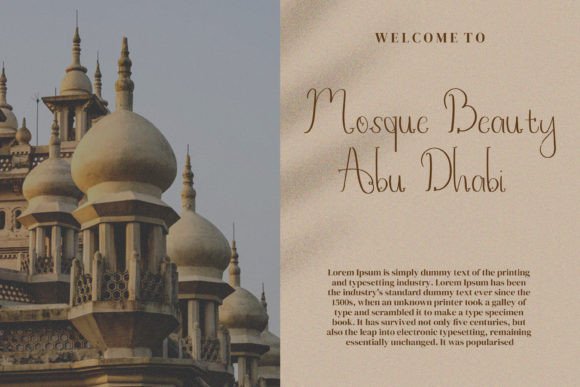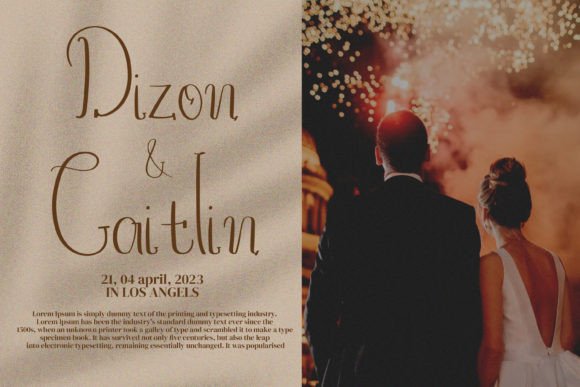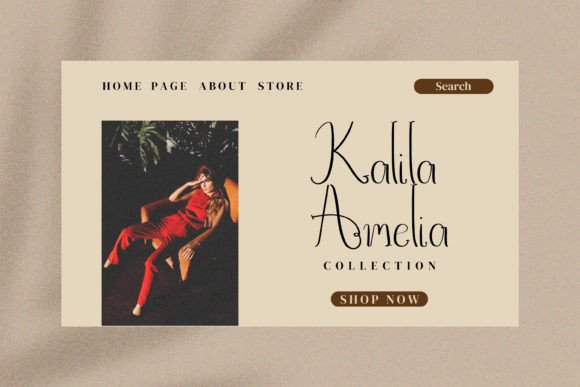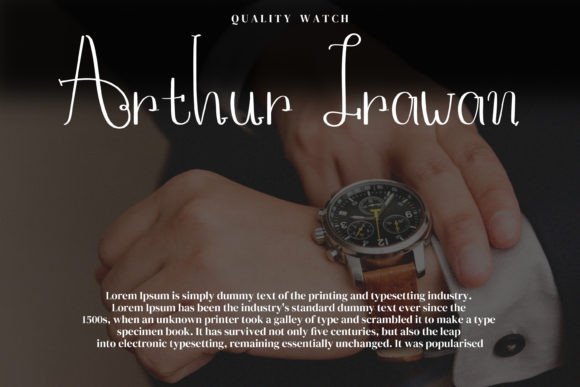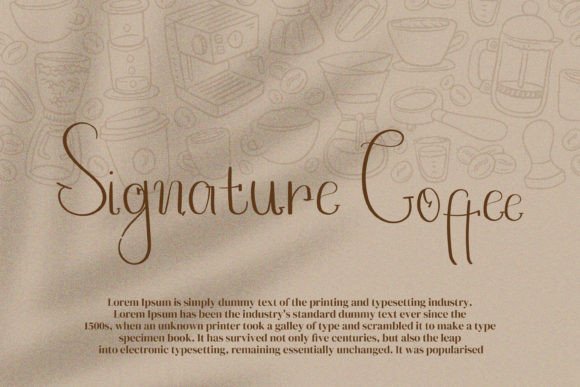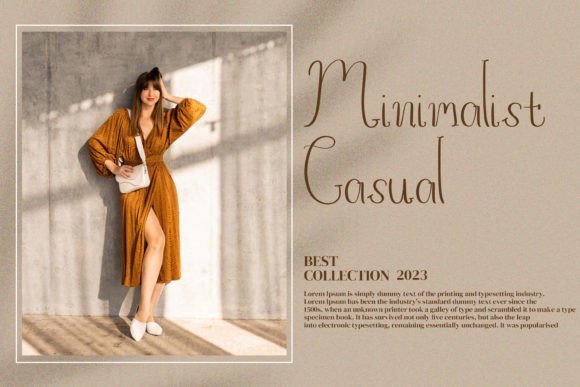
Introduction to Hayletta Font
Hayletta is a fun and quirky handwritten font.
Add it to your crafty ideas and you will love the results .
Key Features of Hayletta Font
Why Choose Hayletta Font?
Hayletta Font offers exceptional quality and versatility, making it a valuable addition to your design toolkit. Whether you’re creating for personal projects or commercial use, Hayletta Font delivers professional results.